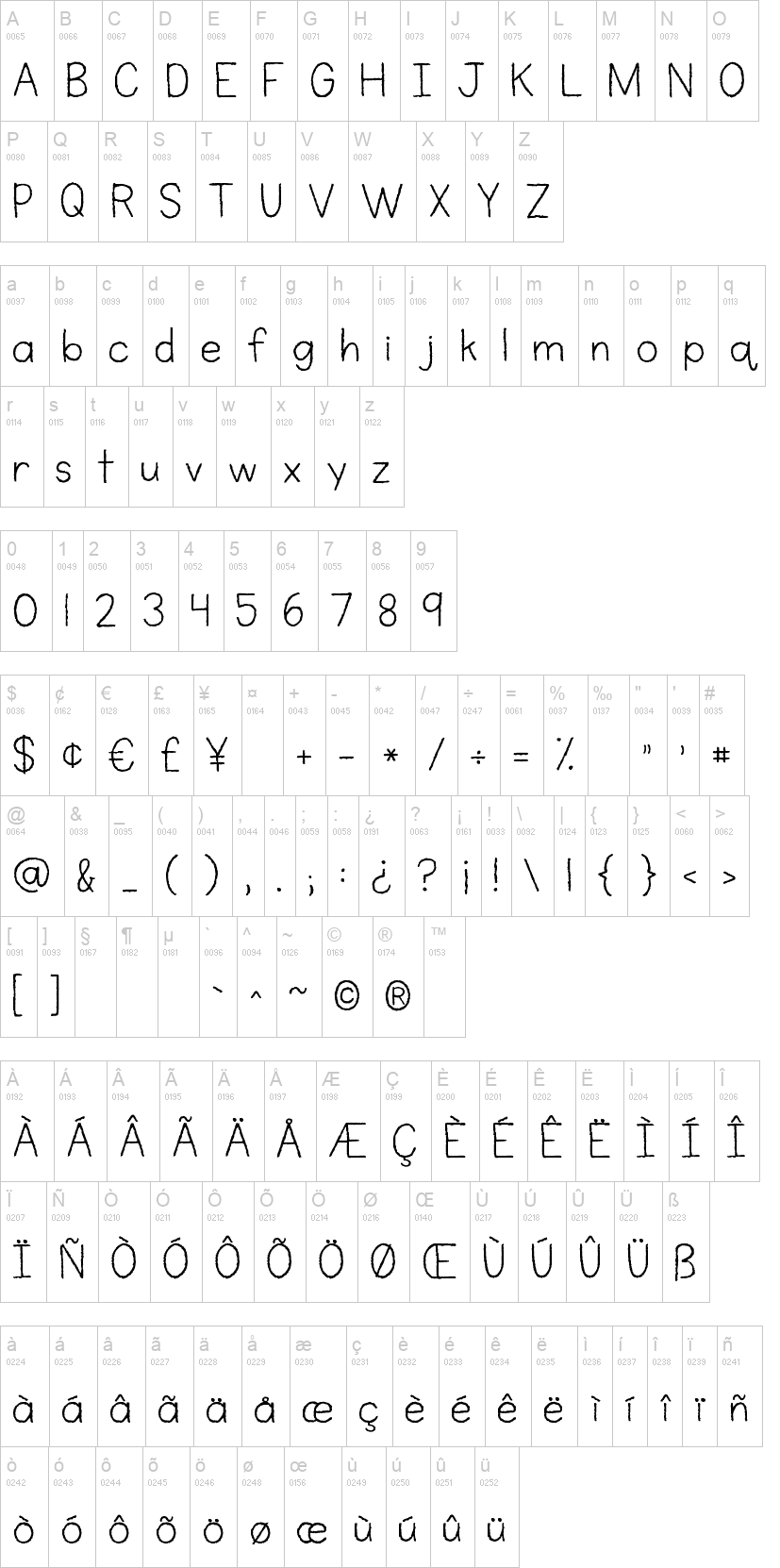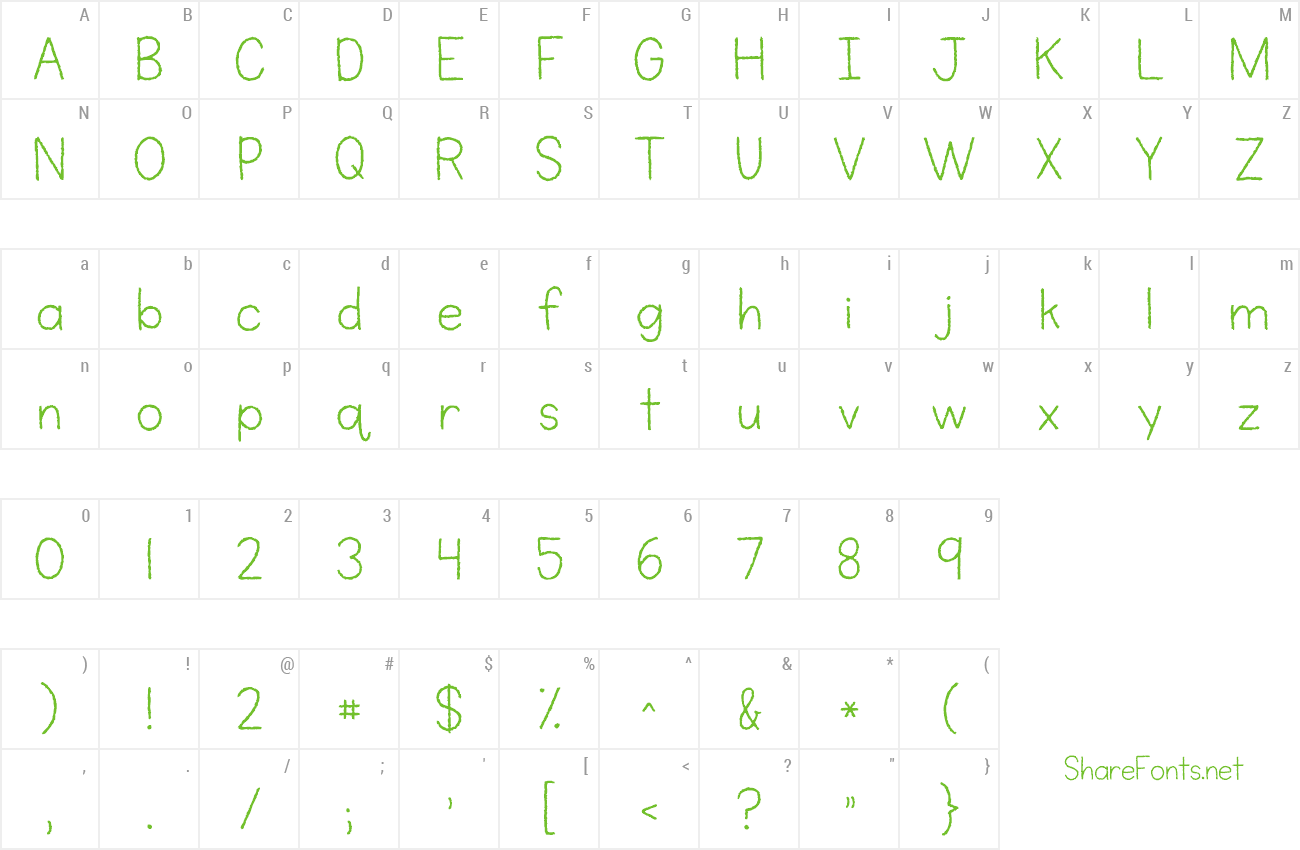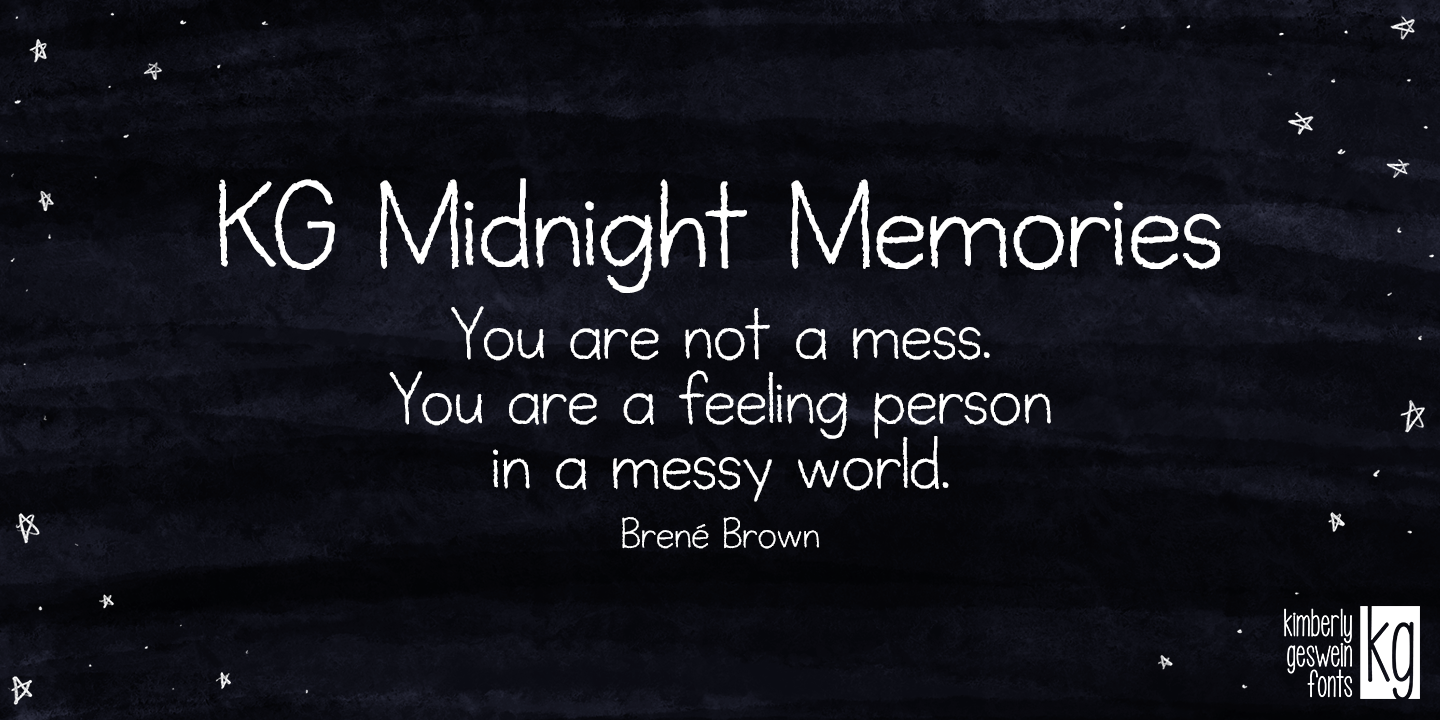
Kg Midnight Memories Font
Kg Midnight Memories Font - Kg midnight memories regular by copyright [c] 2021 by kimberly geswein. Please license at kimberlygeswein.com for commercial use. The typeface contains 1 file and supports 55 languages. Kg midnight memories is a font. Download kg midnight memories regular font. Kg midnight memories is a handwritten font created by kimberly geswein in 2021.